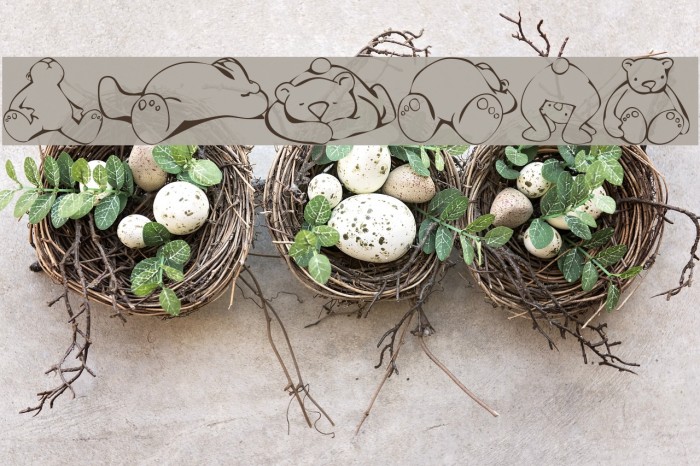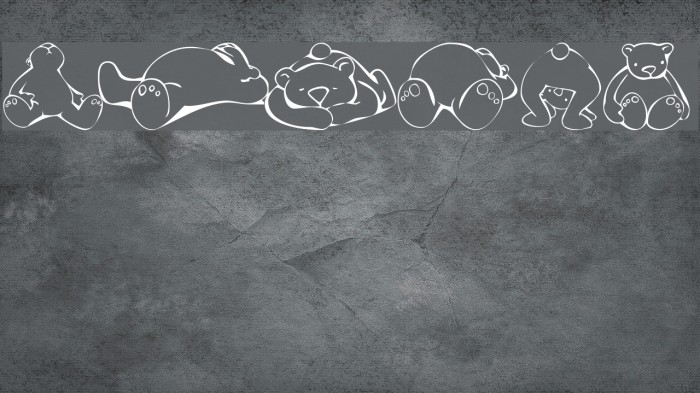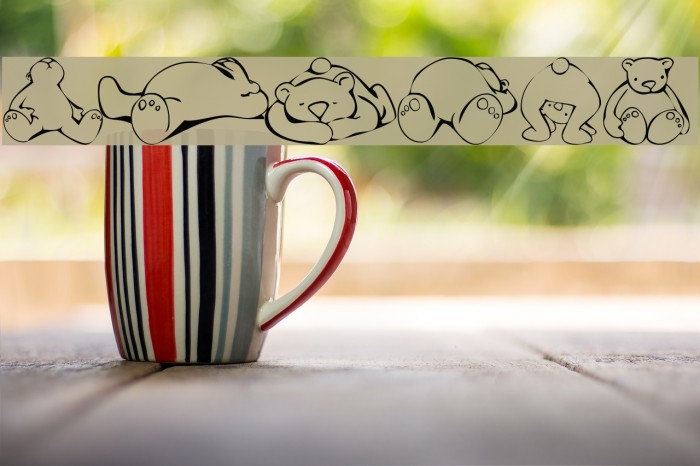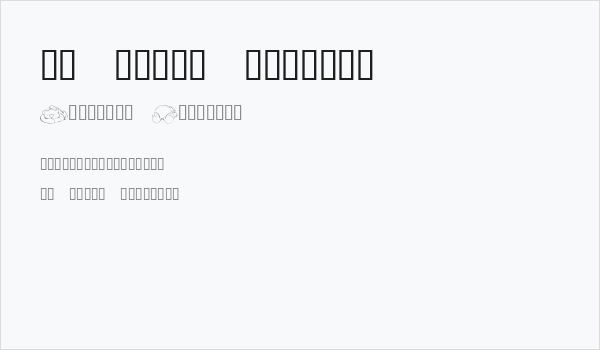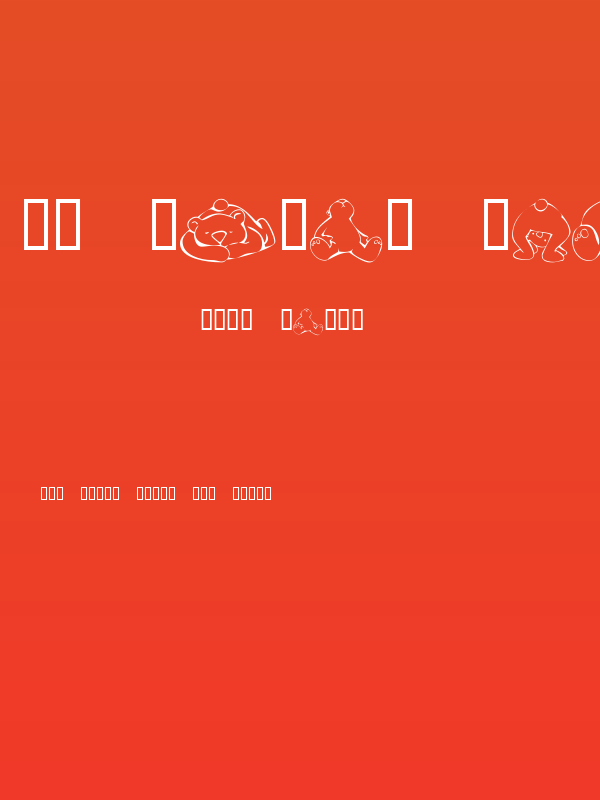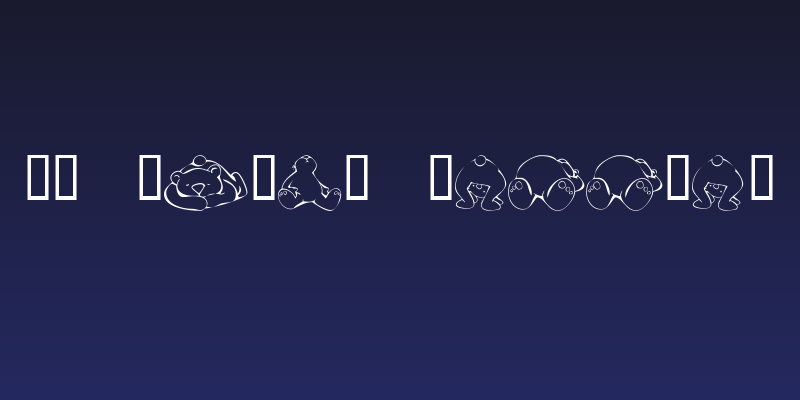
KR Scrap Teddies Font
KR Scrap Teddies Description
This decorative font features playful teddy bear illustrations in place of traditional letterforms. Each character is represented by a unique teddy bear pose, creating a whimsical and charming effect. The design is highly illustrative, with detailed line work that captures the essence of cuddly teddy bears. This font is perfect for projects that require a fun and lighthearted touch, such as children's books, greeting cards, or playful branding. The characters are evenly spaced, ensuring readability while maintaining the decorative nature of the font.
| Use Case | Logos, Decorative text, Children's materials |
| Proposed Projects | Ideal for children's books, playful branding, greeting cards, and decorative projects. |